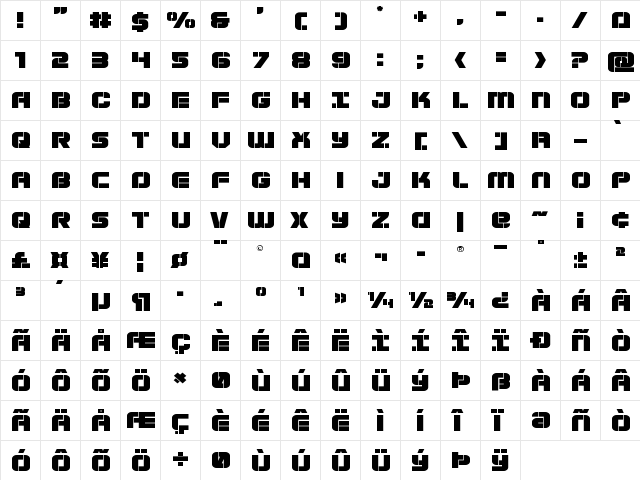
Super Submarine Expanded Expanded
Design Context for Super Submarine Expanded Typeface
Super Submarine Expanded is a composed and adaptable typeface that performs quietly and consistently across a wide range of design contexts.